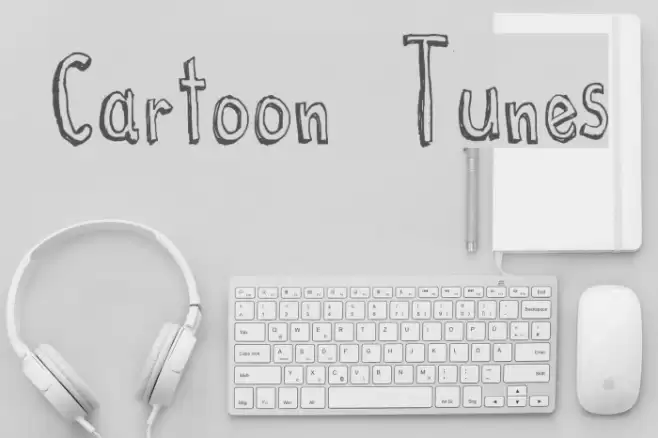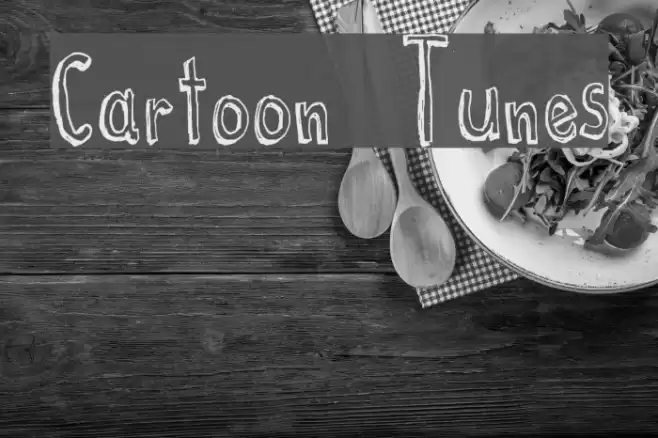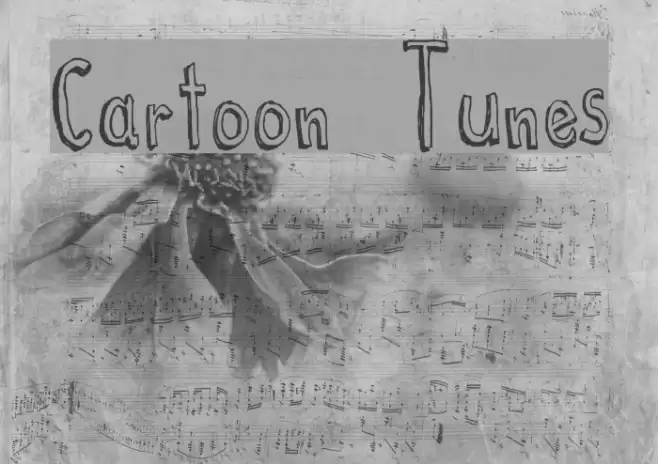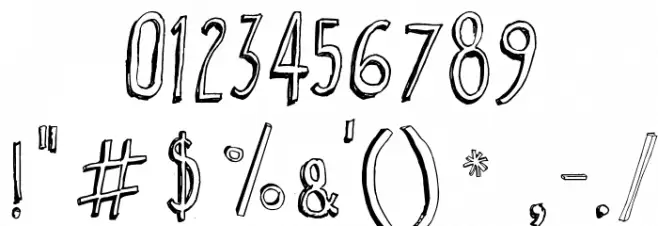
Cartoon Tunes Font
Cartoon Tunes Description
This playful and whimsical font features a hand-drawn style with uneven lines and a cartoonish appearance. The characters are tall and slightly narrow, with a casual, informal feel. The uppercase letters are bold and expressive, while the lowercase letters maintain a consistent style with a touch of quirkiness. Numbers and special characters follow the same playful design, making the font suitable for creative and fun projects. The strokes are uneven, adding to the hand-crafted look, and the overall design is reminiscent of doodles or sketches.
A playful, hand-drawn font with a cartoonish and whimsical style from Cartoon fonts.
- Proposed Projects: Ideal for children's books, comic strips, playful branding, and creative posters.
- Overall Style: Whimsical, Playful, Hand-drawn